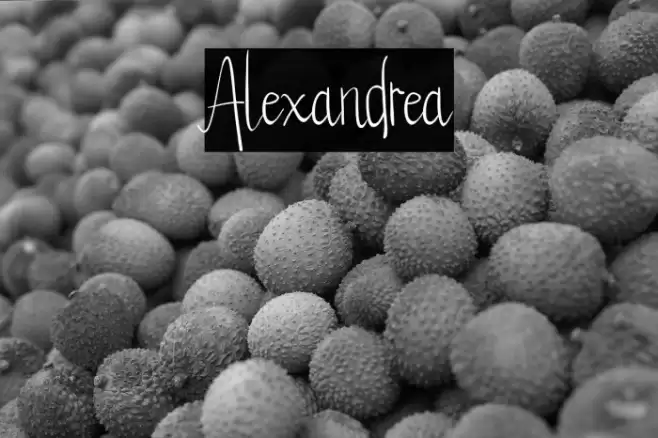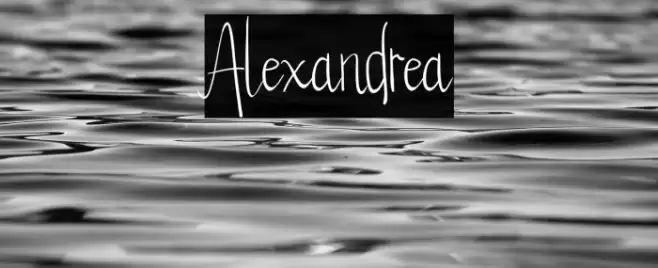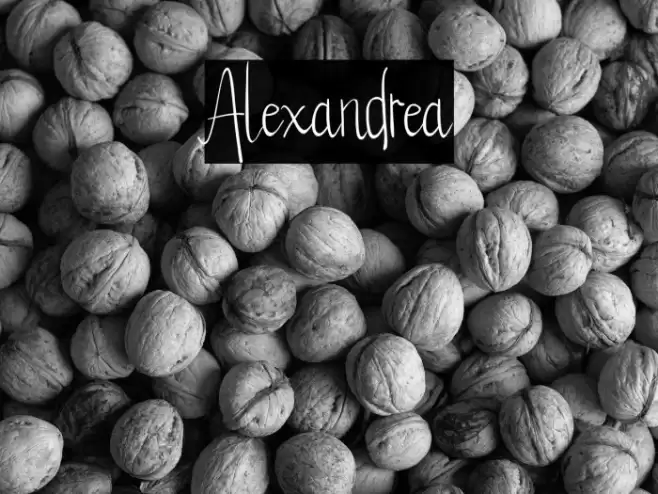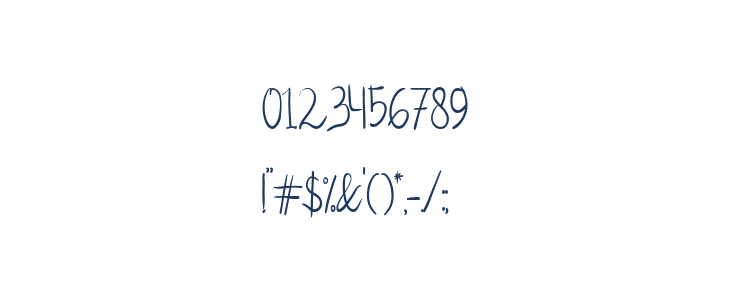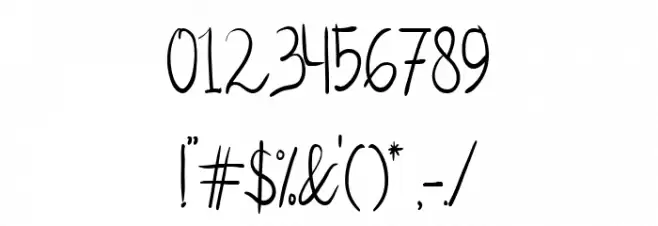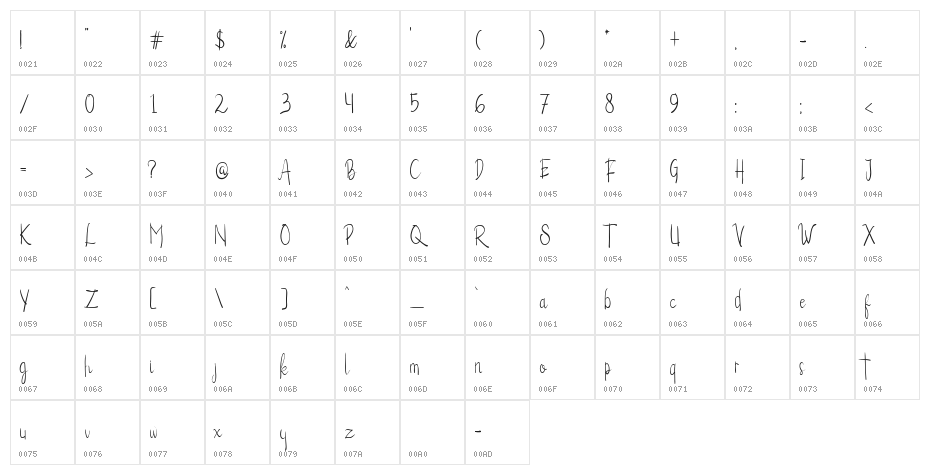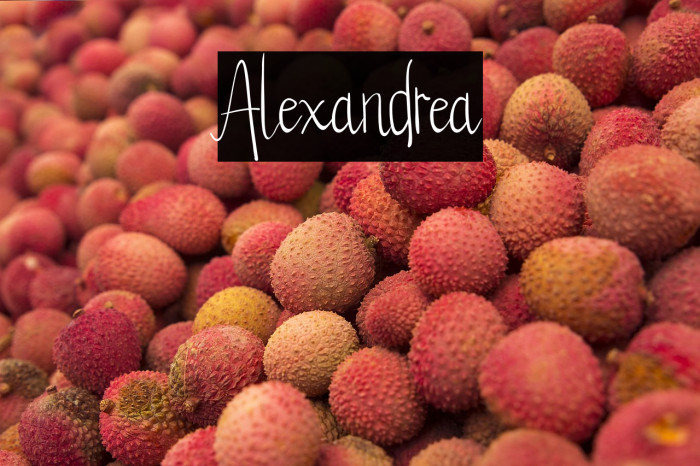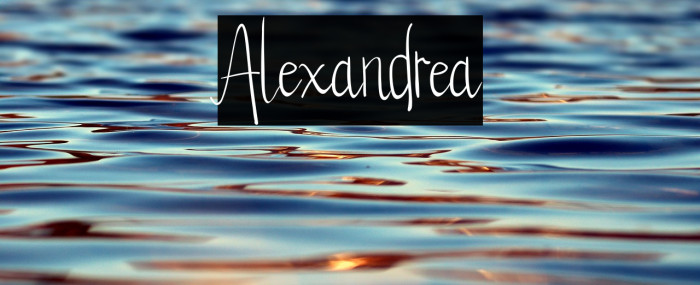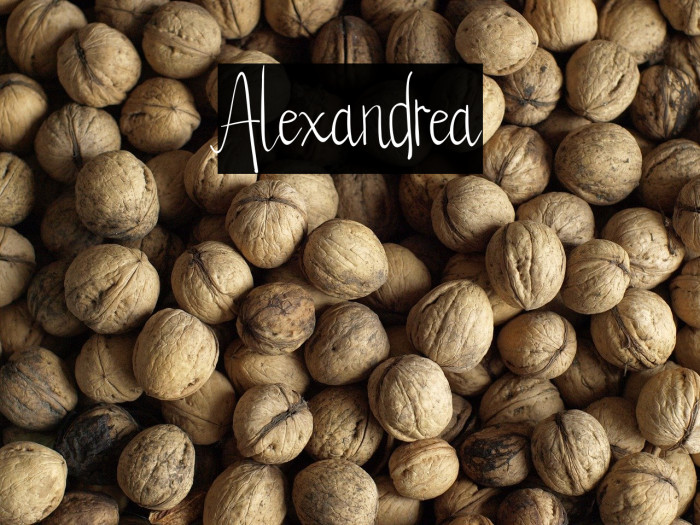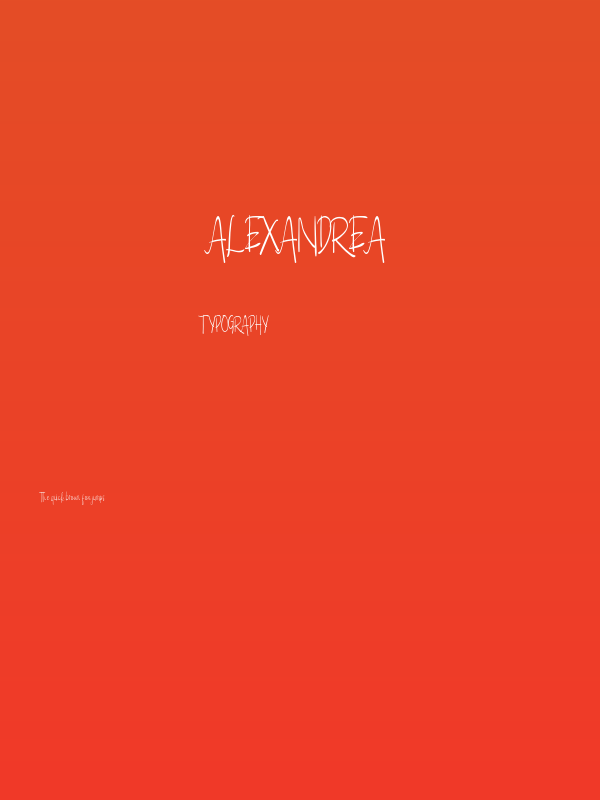
Alexandrea Font
Alexandrea Description
This font features a playful and whimsical handwritten style, characterized by its irregular strokes and varying line thickness. The uppercase letters are tall and narrow, with a slight slant that adds a dynamic feel. The lowercase letters maintain a consistent flow, enhancing the casual and approachable nature of the font. Numbers and special characters are crafted with the same lively touch, ensuring a cohesive look across all elements. The overall appearance is both charming and informal, making it suitable for projects that require a personal and friendly tone.
A playful, handwritten font with irregular strokes and a whimsical style from Regular fonts.
- Proposed Projects: Ideal for greeting cards, invitations, children's books, and personal branding projects.
- Overall Style: Casual, Playful
- Use Case: Headlines, Logos, Informal Text